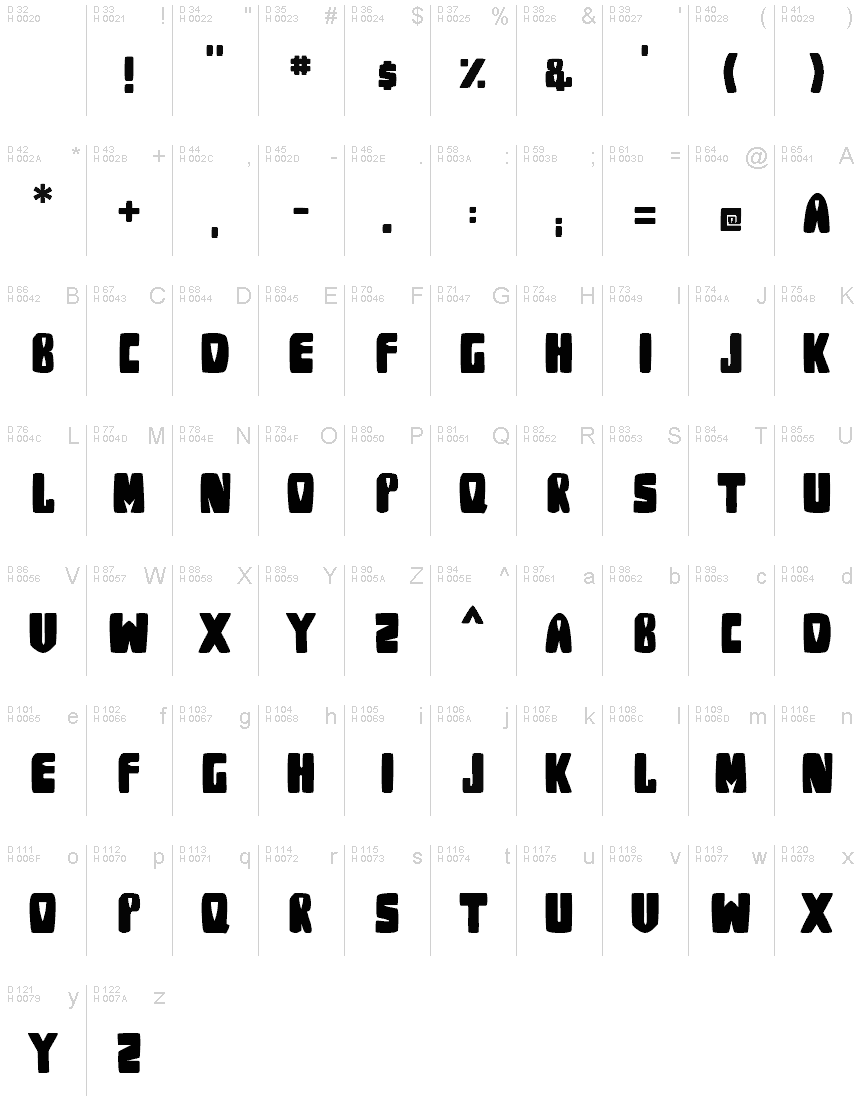
Parrot Leaf
Parrot Leaf, designed by Jacqueline Boss, is a captivating and visually striking display font that commands attention. With its bold weight and extra-condensed width, this font exudes a unique sense of sophistication and elegance that sets it apart from the rest. Parrot Leaf's distinctive characteristics make it an ideal choice for various creative projects, allowing designers to explore its full potential in typography and style. Whether used in branding materials, packaging design, or editorial layouts, this font effortlessly conveys a strong visual impact. Its versatility lies in its ability to seamlessly adapt to different contexts while maintaining its distinct personality.
Parrot Leaf's daring strokes and intricate details add depth and character to any composition, making it the perfect choice for those looking to elevate their designs with a touch of modernity and flair.